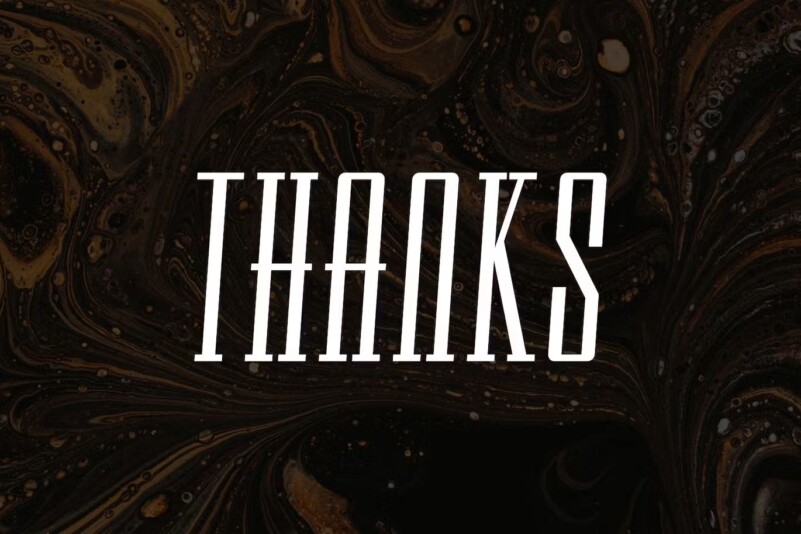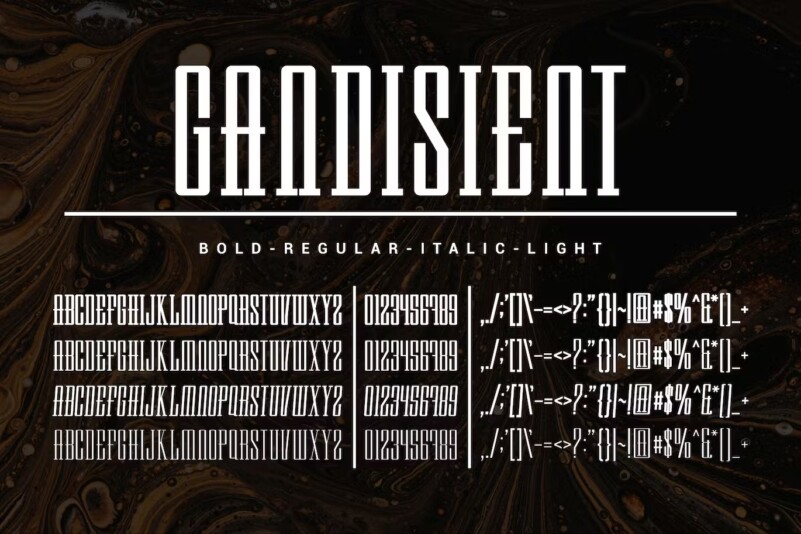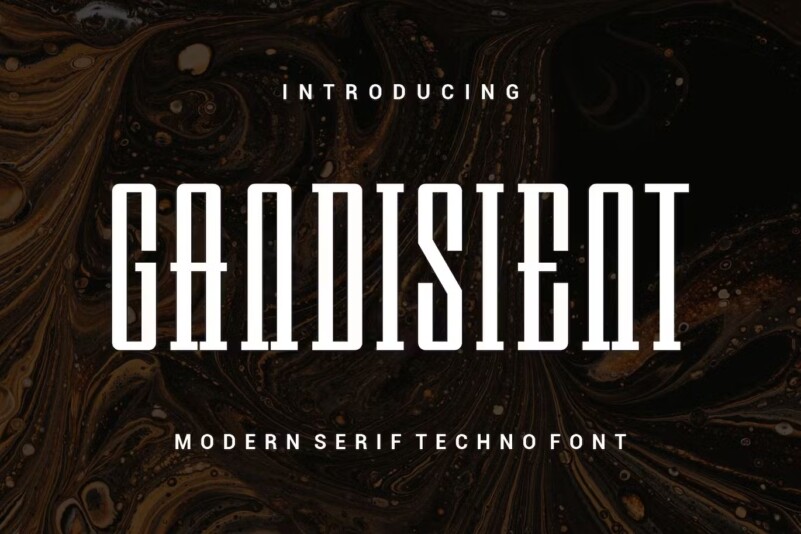
Gandisient Font
Gandisient Font (Bold – Itatic – Light – Regular) Gandisient Font is an elegant and authentic display font. This font is suitable for any branding projects such as logos, t-shirt printing, esports and many more. extraordinary in many contexts.